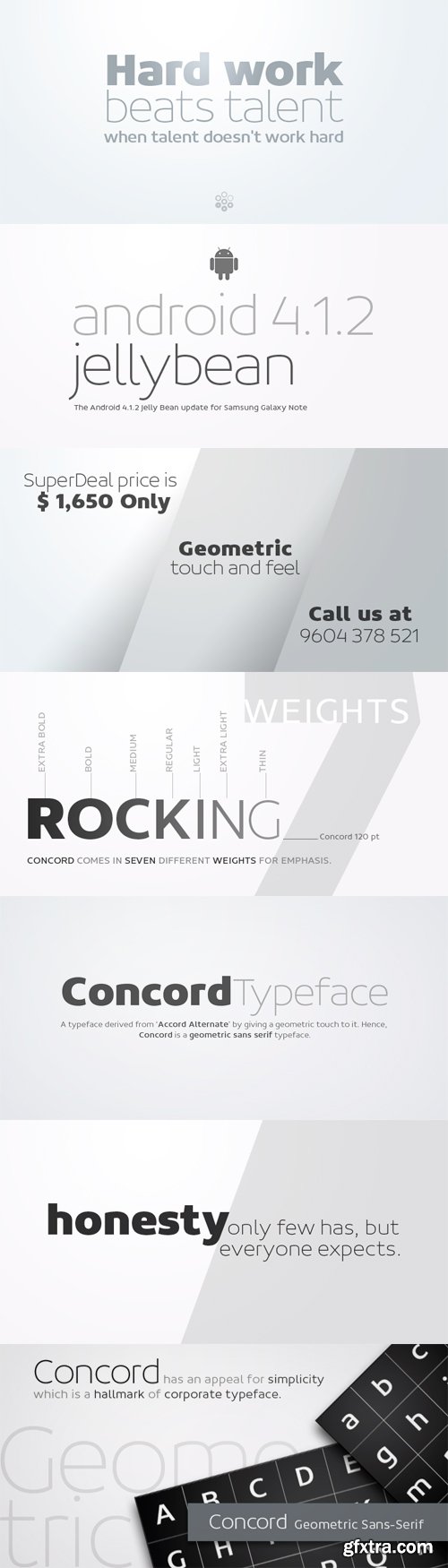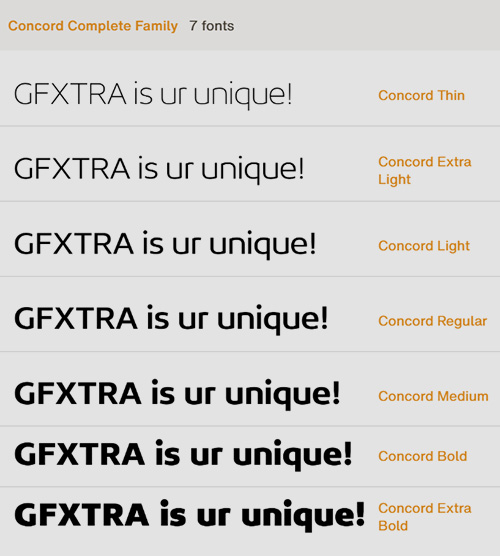
- Yet another typeface with simplicity as its core element. Concord is derived from a successful type family ‘Accord Alternate’ with an added geometric touch. Concord is a geometric sans serif. It has large counters which enhance readability. It is available in seven different weights for emphasis.